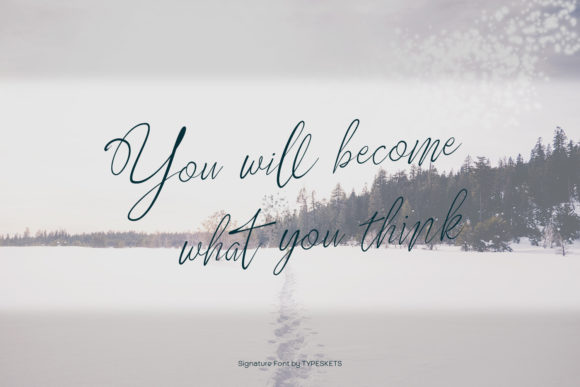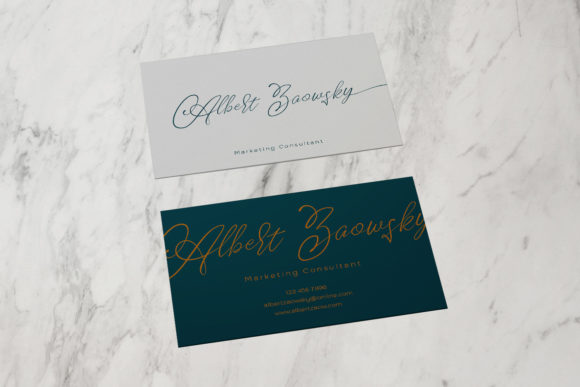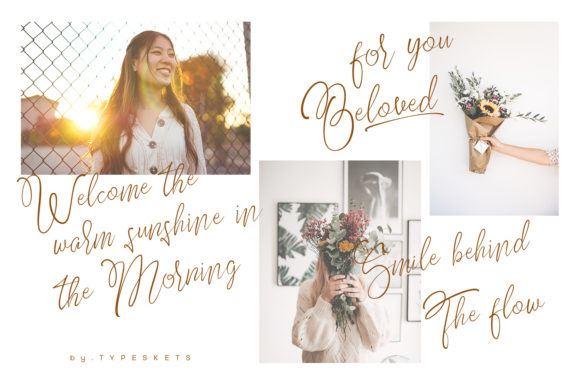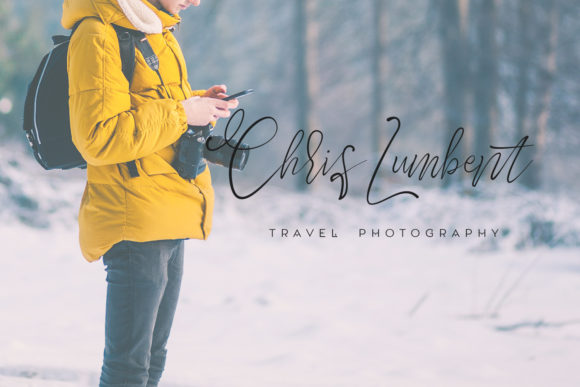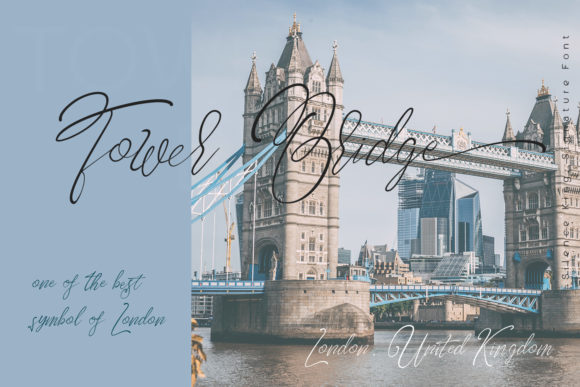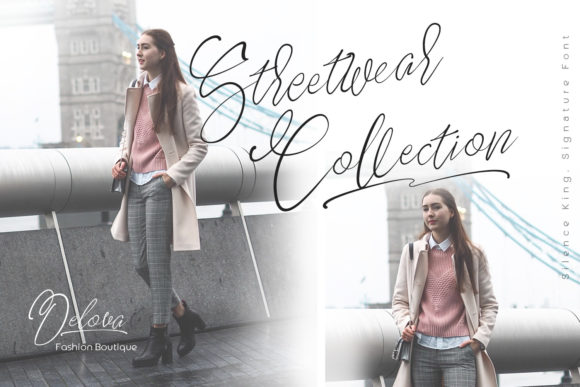
Introduction to Silence King Font
Have you ever found yourself pouring over a design, trying to convey a message that’s both elegant and refined? That’s exactly where Silence King Font comes in – a hand-drawn signature script font that effortlessly exudes a natural, professional, and classy impression. It’s a game-changer for designers who want to elevate their creative projects to the next level.
Imagine being able to craft beautiful wedding invitations, stunning product highlights, or even eye-catching postcards with a single click – the possibilities are endless with Silence King Font. This versatile design resource is perfect for those who crave a high-quality, unique look that sets them apart from the crowd.
Key Features of Silence King Font
• High-quality font designed for creative projects, offering a unique and elegant aesthetic.
• Transparent background, making it perfect for use on various backgrounds and designs.
• Unique characteristics include a minimalist design, clean lines, and a subtle texture, adding depth to any creative project.
Honest Review: Silence King Font
I recently had the chance to work with the Silence King Font, and I must say it’s been a great addition to my design resources. As a designer, I’m always on the lookout for high-quality fonts that can elevate my creative projects.
Here’s what I like about the Silence King Font:
• ✨ The font is sleek and modern, making it perfect for minimalist designs.
• ✨ It comes with a transparent background, which gives me the flexibility to use it with any background image or color.
• ⚠️ The font family is relatively small, which means I have to choose carefully when using it for my designs.
• ⚠️ The font may not be as versatile as some other options, but it’s still a great choice for specific projects.
Overall, I’m impressed with the Silence King Font. It’s a solid design resource that’s perfect for certain creative projects. If you’re looking for a modern, minimalist font with a transparent background, the Silence King Font is definitely worth checking out.
Introduction to Silence King Font
The Silence King Font is a high-quality, unique design resource that can elevate any creative project. With its distinctive style and transparent background, this font is perfect for designers looking for a versatile design element.
Tips for Getting the Most Out of Silence King Font
Experiment with different font sizes, colors, and combinations to achieve the desired effect.
Use the transparent background feature to create visually appealing designs with depth and dimension.
Silence King Font is ideal for use in creative projects, such as:
Graphic design and branding
Infographics and visualizations
Marketing materials and advertising